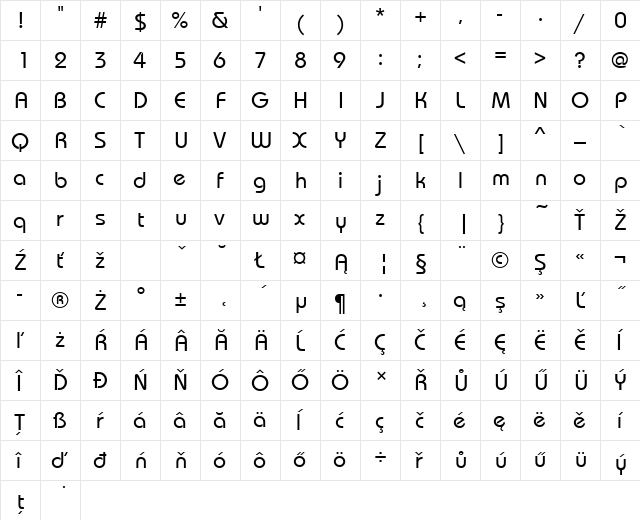
BauhausItcTEEMed Regular Font Preview
BauhausItcTEEMed Regular
Design Context for BauhausItcTEEMed Typeface
BauhausItcTEEMed is a composed and adaptable typeface that performs quietly and consistently across a wide range of design contexts.